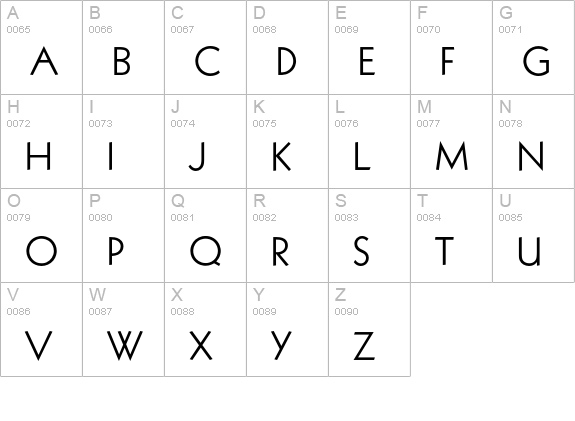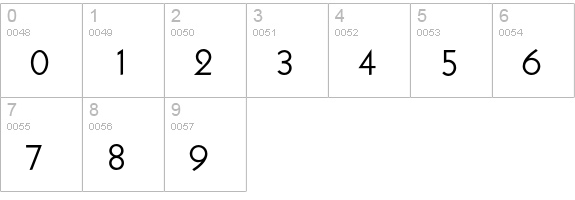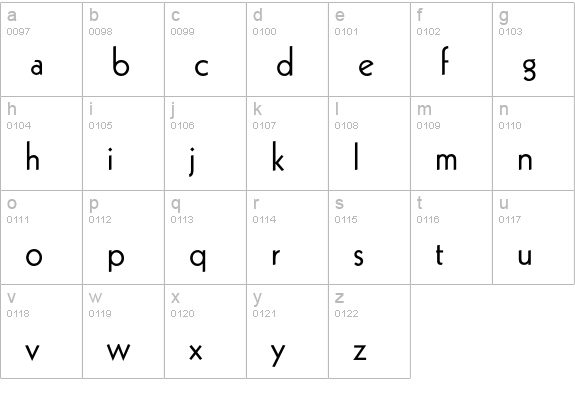
Kabel* STEMPEL Book Font Details
Kabel* STEMPEL Book is a comfortable, highly readable variant in the Kabel* typeface family \xE2\x80\x94 well suited to long-form body text, articles, and editorial content.
Introducing Kabel* STEMPEL Book, a stunning and versatile font that combines the sleek elegance of Kabel with the timeless appeal of a classic book typeface. This font is the perfect choice for those seeking a modern yet sophisticated look for their designs. Featuring clean lines and a balanced weight, Kabel* STEMPEL Book exudes a sense of professionalism and clarity. Its effortlessly legible letterforms make it a go-to option for any project, whether it's a book cover, website design, or branding materials. One of the standout features of Kabel* STEMPEL Book is its versatility. It seamlessly transitions between digital and print mediums, ensuring that your message is communicated effectively across various platforms. Its bold yet refined presence captures attention without overpowering the content, making it suitable for both headlines and body text. What sets Kabel* STEMPEL Book apart is its free availability. You can easily download this font from FontsMarket.com, allowing you to incorporate it into your creative endeavors without any financial constraints. The convenience of having such a high-quality font at your fingertips enables you to bring your vision to life with ease. So whether you're a designer, a writer, or simply someone looking to add a touch of sophistication to your personal projects, Kabel* STEMPEL Book is the perfect choice. With its timeless appeal, versatility, and the fact that it is freely available to download at FontsMarket.com, this font is sure to become a staple in your design toolkit. Unleash your creativity and elevate your projects to new heights with Kabel* STEMPEL Book.